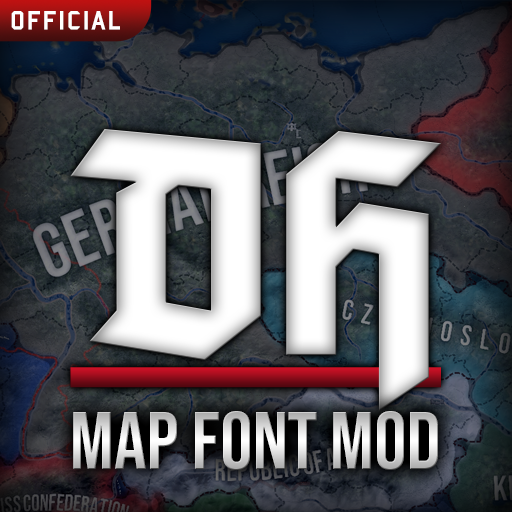
Darkest Hour - Standalone Map Font
This standalone mod by the Darkest Hour Project allows you to use our custom-made map font texture for standalone gameplay. The texture is based on the Bebas Neue font.